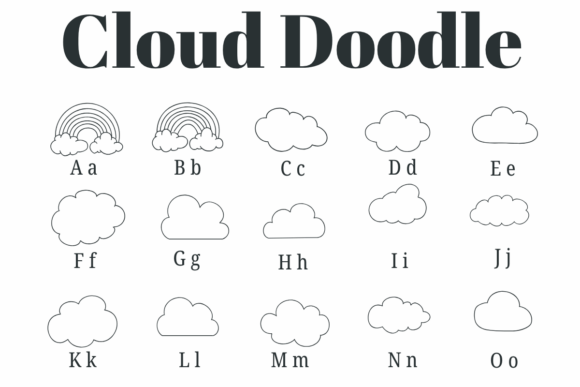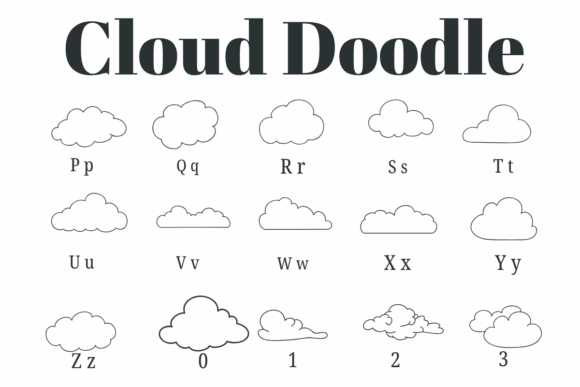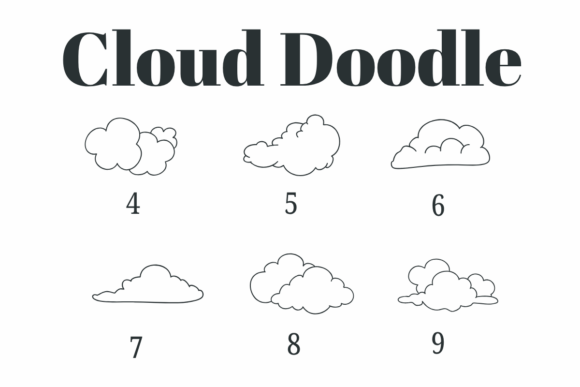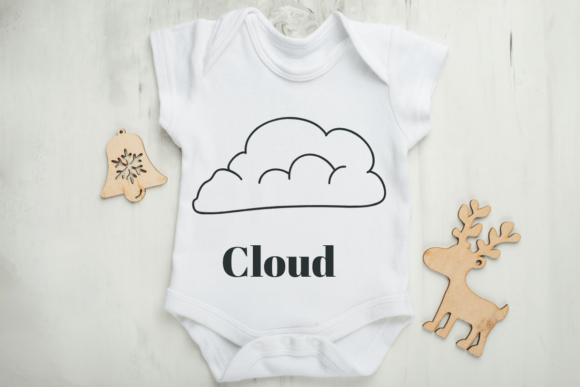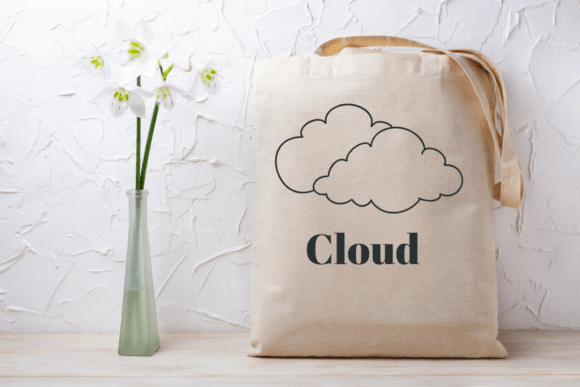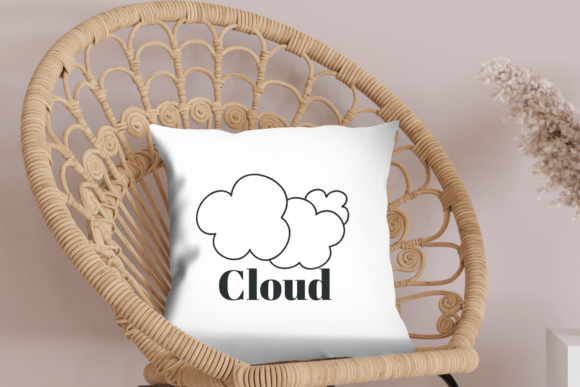
Unleash Your Creativity with Cloud Doodle Font
Have you ever found yourself sitting at your desk, staring blankly at a blank sheet of paper, waiting for inspiration to strike? The blank page can be intimidating, but it’s also a canvas just waiting to be filled with creativity. For designers, artists, and crafty enthusiasts, finding the perfect font can be the spark that sets the creative wheels in motion.
Enter the Cloud Doodle Font, a charming dingbats font with a sketch-style aesthetic that’s perfect for adding a touch of whimsy to your projects. Whether you’re designing wedding invitations, creating DIY crafts, or decorating your home, the Cloud Doodle Font is a valuable tool that can help bring your ideas to life.
Cloud Doodle Font Key Features
- Unique Characteristics: Cloud Doodle Font features a playful, whimsical design with hand-drawn elements, giving it a unique and creative touch that sets it apart from other fonts.
- Character Set: The font includes a wide range of characters, including uppercase and lowercase letters, numbers, punctuation marks, and special characters, making it suitable for various design projects.
Cloud Doodle Font Review
At first glance, the Cloud Doodle Font has a playful and whimsical feel to it. ✨ It’s perfect for adding a touch of fun to children’s books, educational materials, or even social media posts. The font’s soft, rounded edges and gentle curves create a sense of friendliness and approachability.
However, upon closer inspection, some limitations become apparent. ⚠️ The font’s inconsistent spacing and letterforms can make it challenging to read, especially in larger blocks of text. Additionally, the font’s lack of bold weights and italic options may limit its versatility in certain design applications.
Here are some specific features that work well:
- Unique and creative letterforms that add a touch of personality to designs.
- Soft, rounded edges that create a sense of friendliness and approachability.
- Perfect for adding a playful touch to children’s books, educational materials, or social media posts.
Overall, the Cloud Doodle Font is a fun and creative addition to any design project. While it may have some limitations, its unique and playful feel makes it a great choice for certain applications.
Getting the Most Out of the Cloud Doodle Font
Experiment with different font sizes, colors, and styles to create unique and eye-catching designs.
Combine the Cloud Doodle Font with other creative elements, such as illustrations or graphics, to add visual interest.
The Cloud Doodle Font is perfect for:
1. Creative resumes and CVs.
2. Social media graphics and posts.
3. Marketing materials, such as brochures and flyers.
4. Personalized gifts and invitations.
Alternatives to Cloud Doodle Font
Great Vibes is a beautiful, cursive font perfect for creating a whimsical and carefree atmosphere. It’s ideal for use in headings, titles, and quotes that need a touch of elegance and sophistication.
Compared to Cloud Doodle Font, Great Vibes is more elegant and refined, making it a better choice for formal designs. While Cloud Doodle Font has a more playful and childish feel, Great Vibes is more versatile and can be used in a wide range of designs.
Carolyna Pro is a modern, handwritten font that’s perfect for creating a personal and emotive connection with your audience. It’s ideal for use in headings, titles, and quotes that need a touch of warmth and personality.